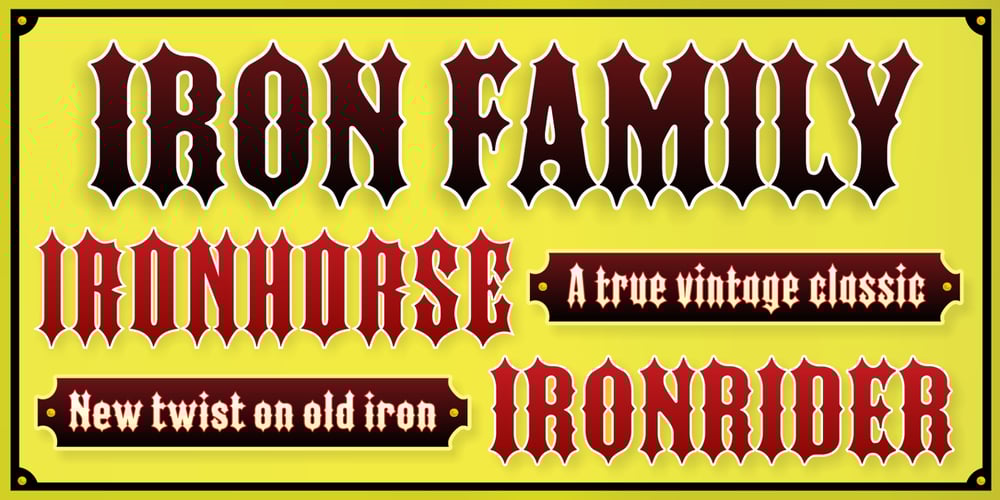
Iron Font Family was designed by Michael Gene Adkins, James L. Stirling and published by The Fontry. Iron contains 2 styles and family package options. The Iron Family is a revival of two classic wood type fonts, but with a modern necessity: the addition of a lowercase character range. With a recent history of identifying everything from Little League teams to chopper magazines, the influence of these spike-filled old-timers is undeniable. Whether the theme is Western, skateboards or a horror flick, these fonts have been there. So arm your computer with the latest spin on a pair of vintage favorites. For a free version of this font and a look at the IRON FAMILY Specimen Book, goto http://www.thefontry.com/ironfamily